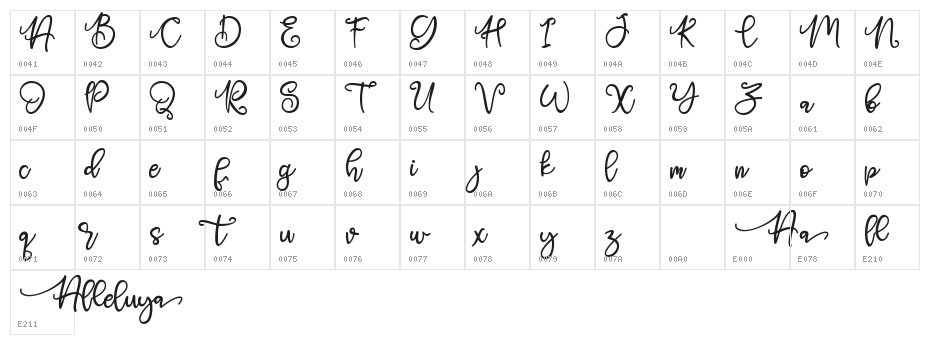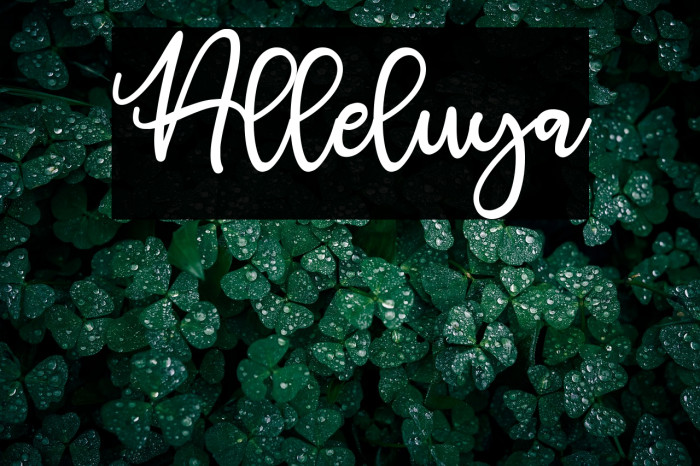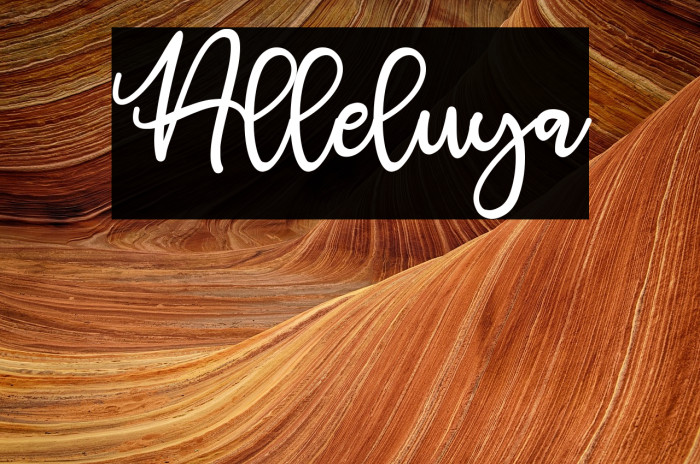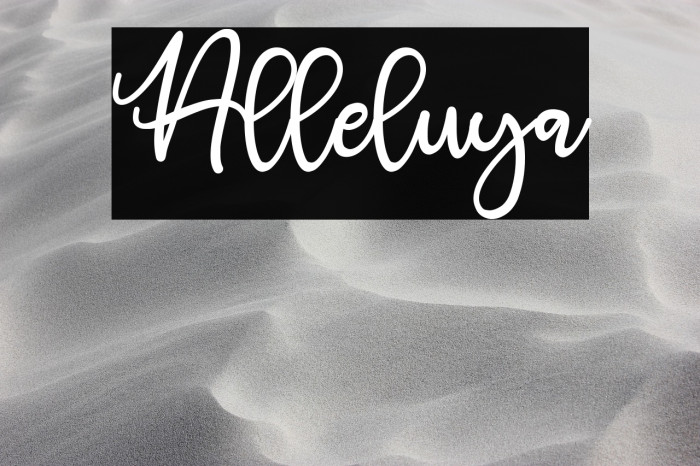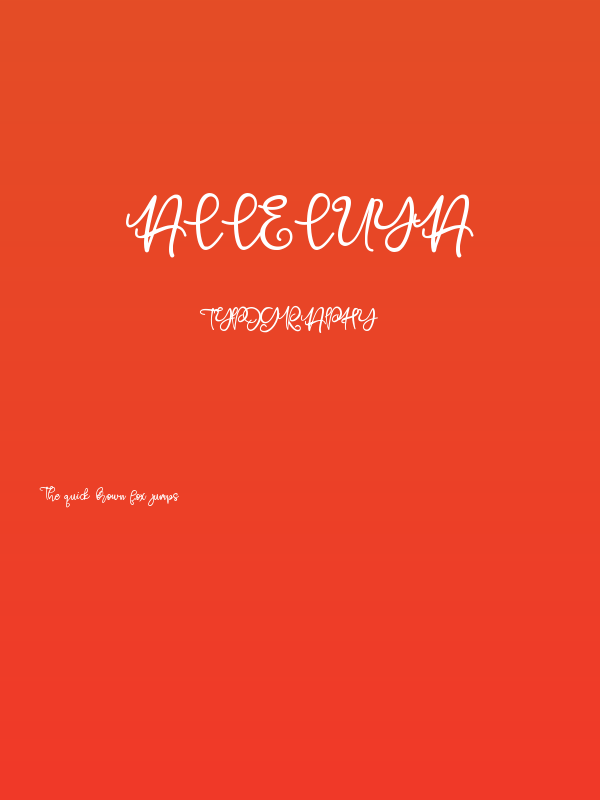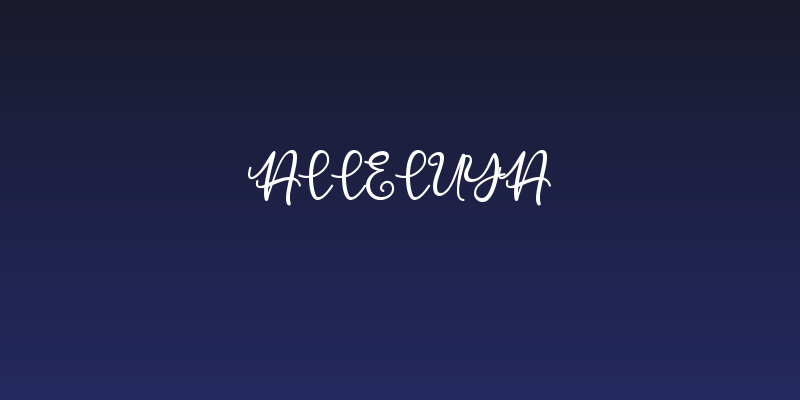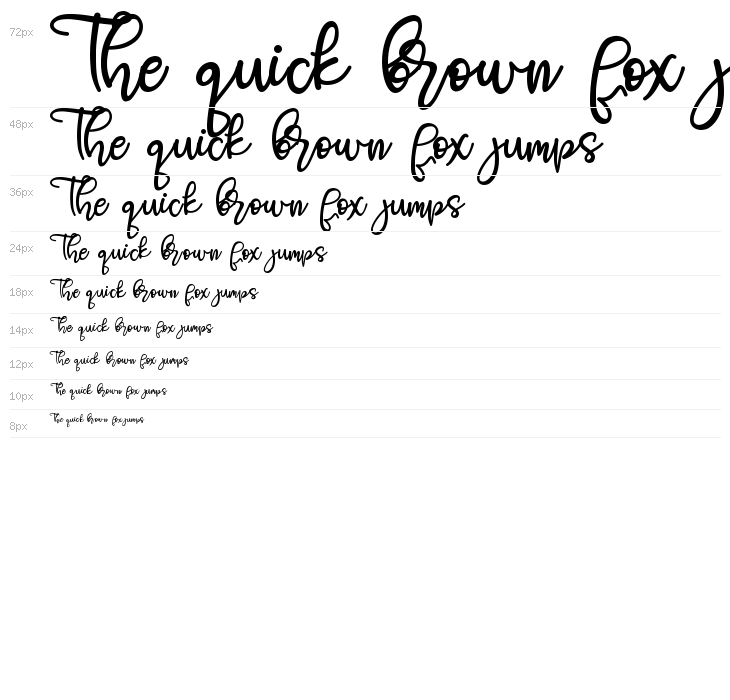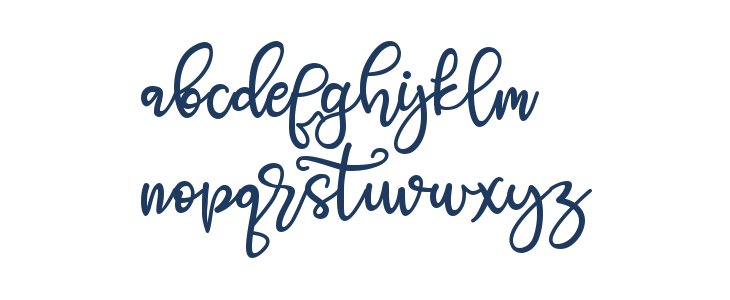
Alleluya Font
Alleluya Description
This font features an elegant and flowing script style, characterized by its smooth, cursive strokes and graceful loops. The uppercase letters are bold and expressive, with a slight slant that adds a dynamic feel. The lowercase letters maintain a consistent flow, enhancing readability while retaining a stylish flair. The font's design is both playful and sophisticated, making it suitable for a variety of creative projects. The special characters are crafted with the same attention to detail, ensuring a cohesive look across all elements.